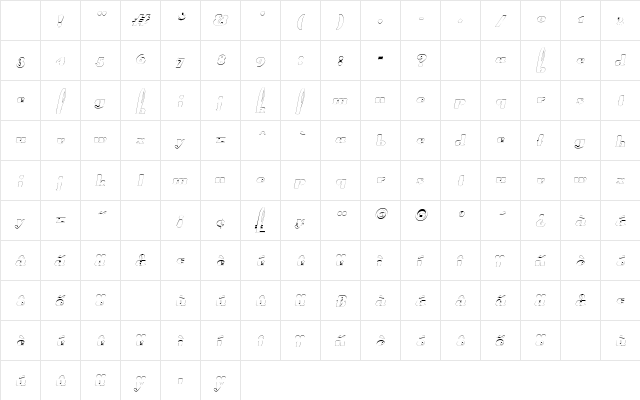
SplittingHaresOutline Oblique
Design Context for SplittingHaresOutline
SplittingHaresOutline is built around its visual character rather than neutral utility - its distinctive forms are designed to make an impression at display sizes. The slanted form adds forward momentum and visual energy.
Font Pairing: Pair with a clean neutral sans-serif for body copy to let SplittingHaresOutline's character lead without overwhelming the composition.
Pro Tip: Use SplittingHaresOutline exclusively at display sizes - it was designed to be seen, not read at length. Let a neutral companion handle body copy.